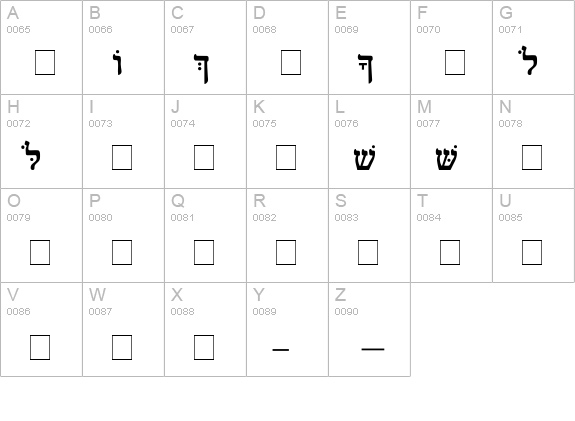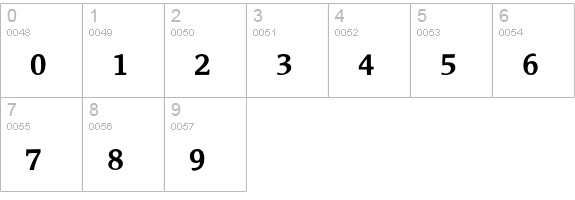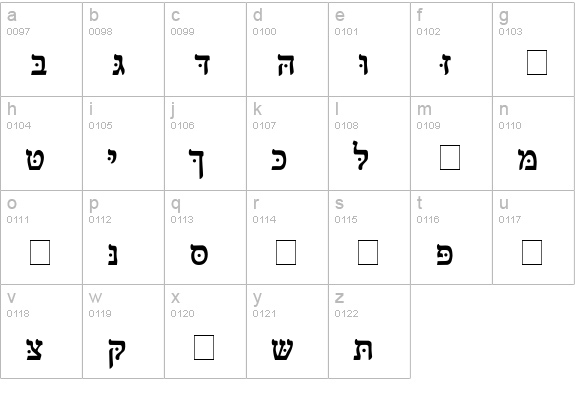
Dor Regular is the standard, neutral variant in the Dor typeface family \xE2\x80\x94 well suited to general body text, paragraphs, and standard typographic work.
Dor Regular font is a versatile and modern typeface that exudes elegance and sophistication. With its clean lines and balanced proportions, this font is perfect for a wide range of design projects. Whether you're working on branding, editorial design, or web design, Dor Regular font will add a touch of class to your work. The best part? Dor Regular font is completely free to download at FontsMarket.com. So you can elevate your designs without breaking the bank. Don't miss out on this opportunity to enhance your projects with the timeless beauty of Dor Regular font. Download it now and start creating stunning designs today!